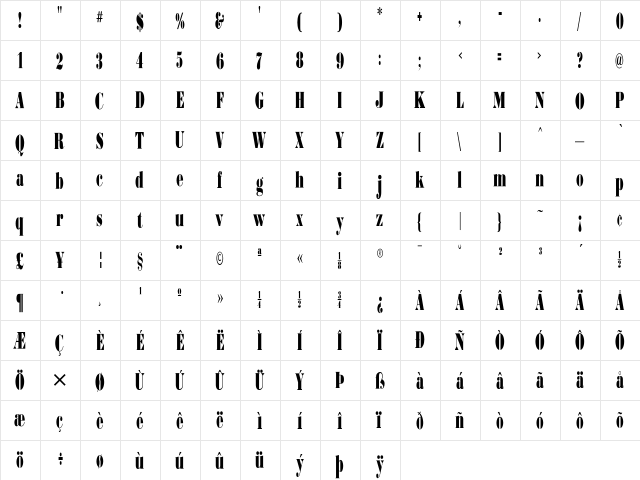
BodoniUltraFLFCond Regular
Design Context for BodoniUltraFLFCond Typeface
BodoniUltraFLFCond is a composed and adaptable typeface that performs quietly and consistently across a wide range of design contexts. Its narrow stance lets it pack a punch even in space-constrained designs.